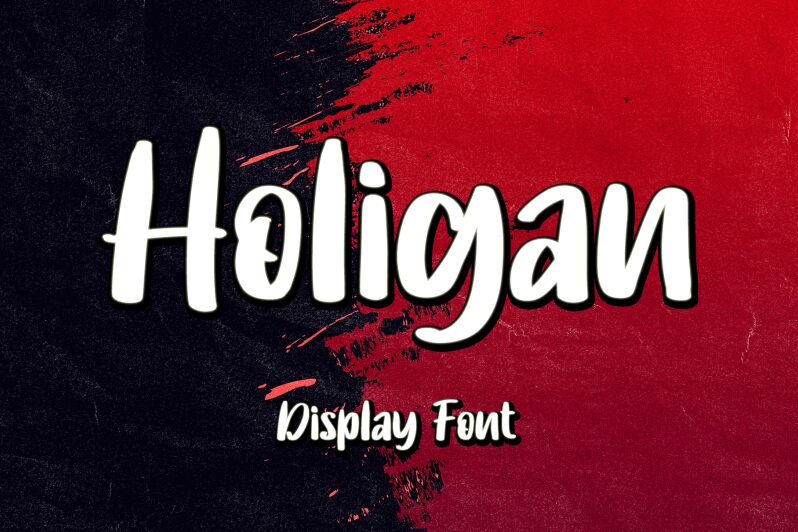
Holigan Regular
Holigan, the creation of Letterafa Studio, is a captivating smooth brush font that exudes artistic flair. With its semi-bold weight, this typeface carries a perfect balance between boldness and elegance. Its flowing strokes and handcrafted feel make it ideal for projects that aim to evoke creativity and imagination. From logo designs for fashion brands seeking a touch of sophistication to album covers yearning for a rebellious spirit, Holigan adds an intriguing charm to any creative endeavor. Stand out from the crowd with this font that leaves an indelible impression on your audience's mind.